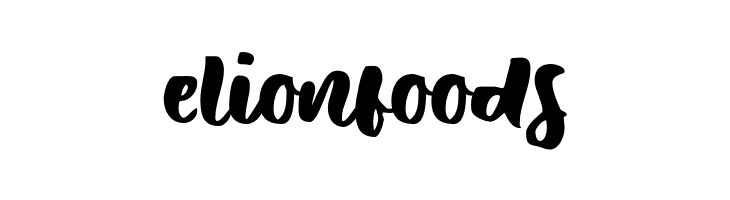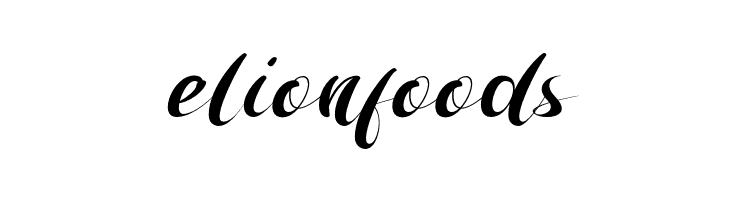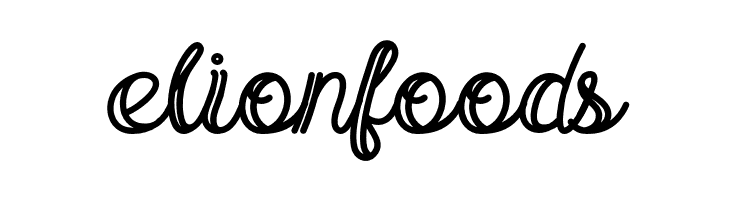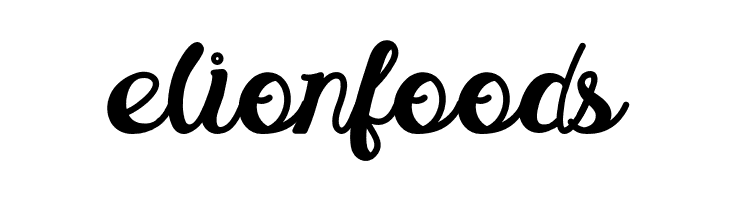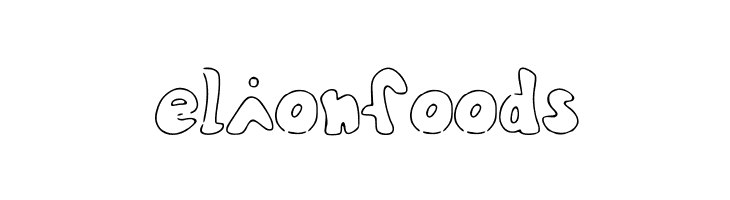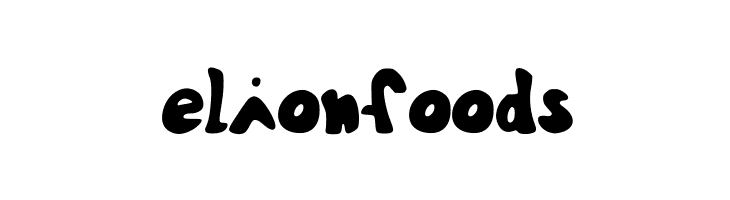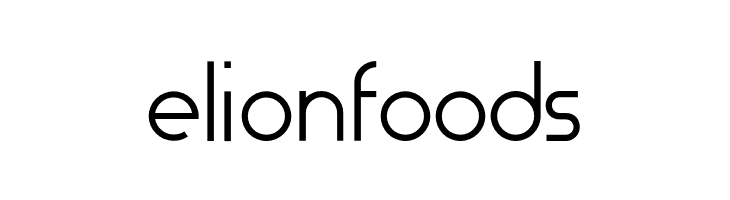
A double-line script font with elegant, flowing connections and smooth curves.
A romantic, cursive font with elegant loops and swashes.
A bold, handwritten-style font with a playful and expressive character.
An elegant script font with flowing, interconnected letters and high contrast strokes.
A bold, playful font with rounded, hand-drawn characters.
A playful, hand-drawn outline font with a whimsical and friendly style.
A sophisticated script font with smooth, flowing lines and a cursive style.
A fluid and elegant script font with a modern twist, perfect for a handwritten aesthetic.
A bold, flowing script font with a lively and energetic style.